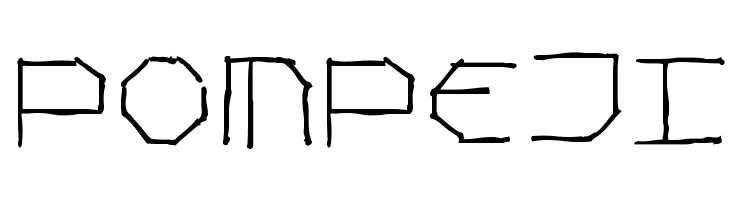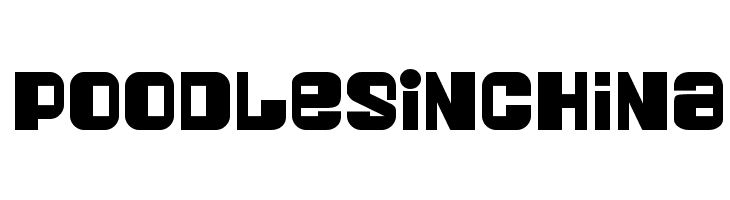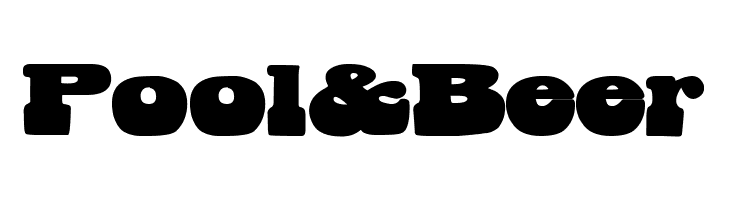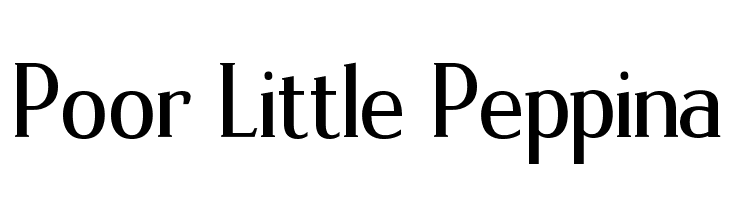
A bold, rounded font with a playful, vintage appeal.
A bold, playful font with thick, rounded edges and a whimsical style.
An abstract, artistic font with irregular, distorted letterforms.
A playful, hand-drawn font with a quirky and informal style.
A clean, minimalist font with thin, uniform lines and balanced spacing.
A thin, elegant serif font with tall, slender characters and subtle serifs.
A playful, bold font with smooth, rounded edges and a cartoonish style.